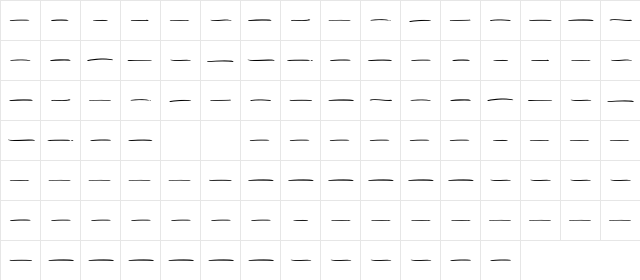
Rockhead Swash
Design Context for Rockhead Typeface
Rockhead flows with the natural rhythm of handwritten lettering, making it ideal for designs that call for warmth and personal expression.
Font Pairing: Combine Rockhead with a simple geometric sans for maximum contrast — the tension between flowing curves and clean structure is a classic typographic pairing.
Pro Tip: Use Rockhead for short runs of text — names, titles, or taglines. Extended body copy in script faces tires the eye quickly.